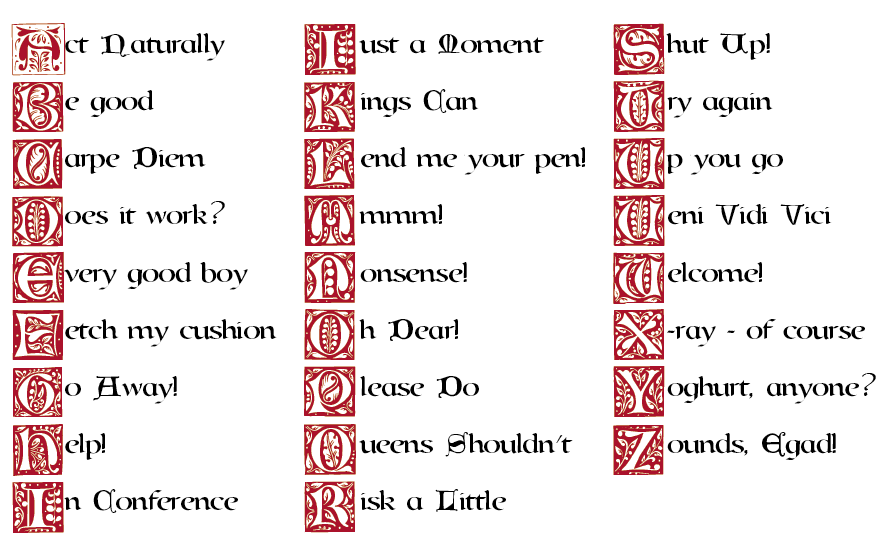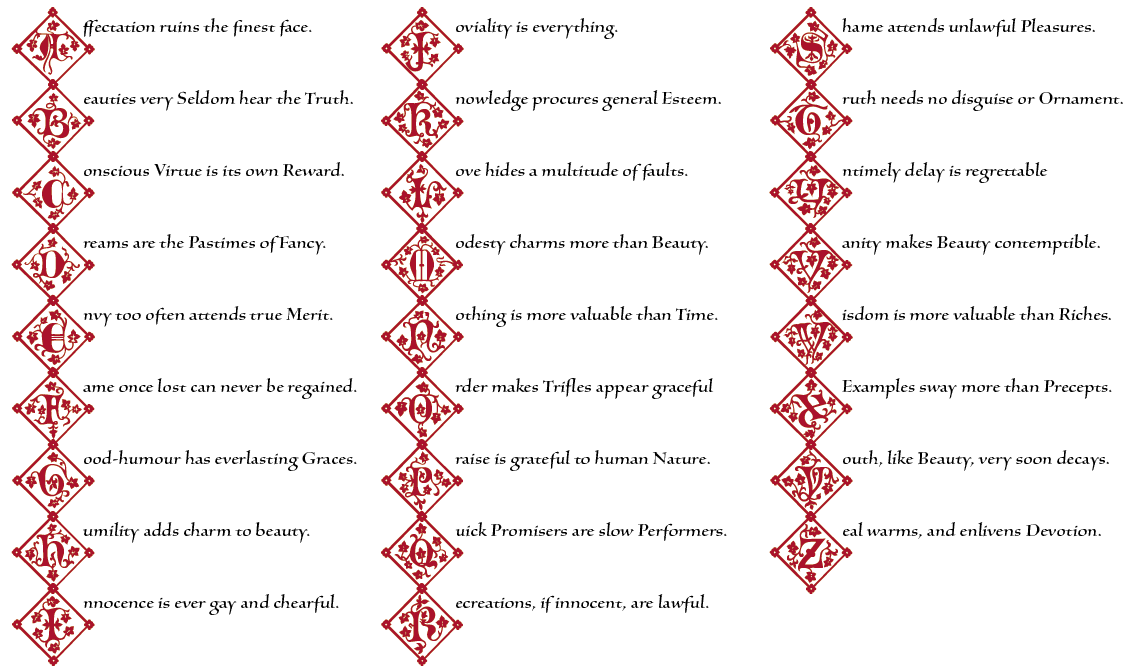
es, I made up this word (Gk. 'kefalaios' = 'capital'), at least until I find a better one, for a group of sentences which start each with a different letter of the alphabet and together give the whole repertoire.
OK, to say 'all the capital letters' it should be 'pankefalaiogram' - but isn't it enough as it is?
They're the natural way to demonstrate a set of capitals in their proper context. I've found three, but they're all in English and all have a rather heavy puritan-christian-moral tone. I've written more light-hearted ones myself in English, Latin and Swedish, I'll be glad to hear from anyone who has suggestions for alternatives. Or can even give a name to the genre ...
OK, I have found the terms 'alphabetic acrostic/on' and 'abcedarian/abecedarian poem': and Google found me some examples from other cultural backgrounds; though I'm not sure I'm quite ready to present my type work to the world in a text that starts 'A is for Asshole ...' So for I think I'll stick with 'kefalaiogram' ;-)
| text
from John de BeauChesne, London 1602 |
text
from George Bickham, London 1733 |
text
from George Bickham, London 1733 |
| DK
2006 |
(Latin)
DK 2006 |
(Swedish)
Edwin Gold & DK 2006 |